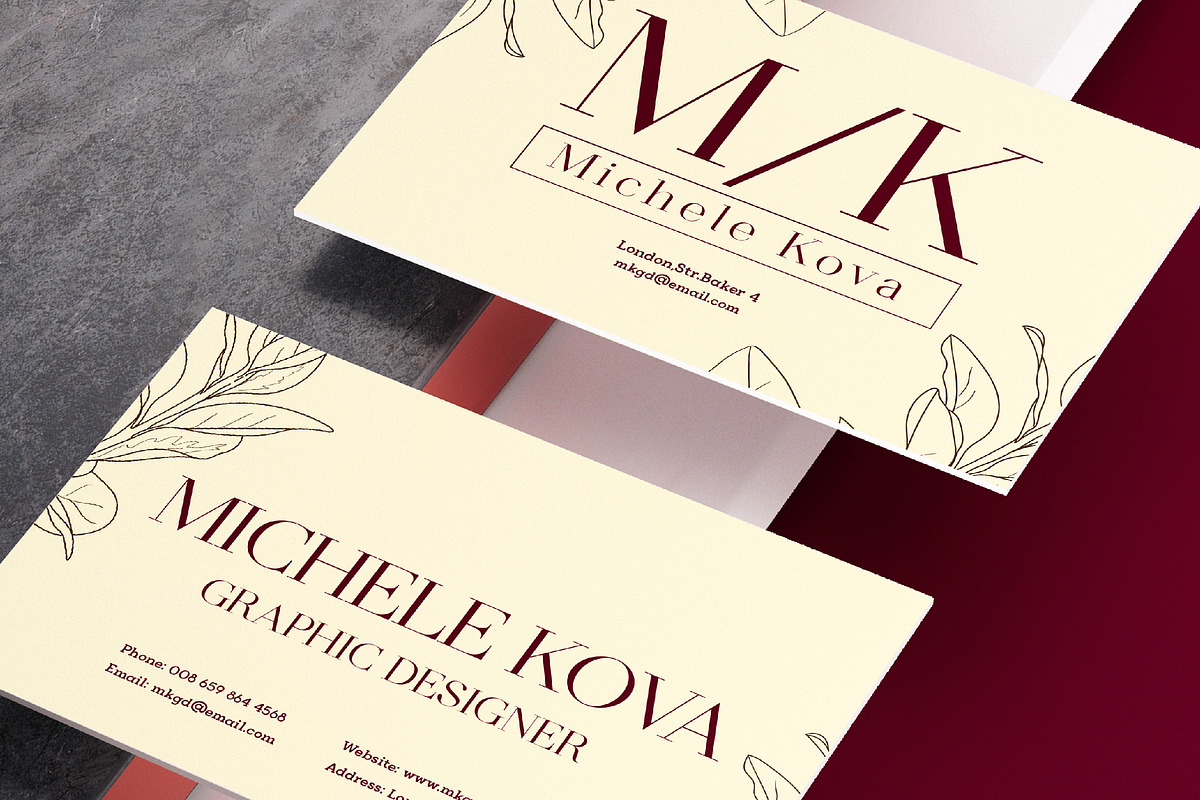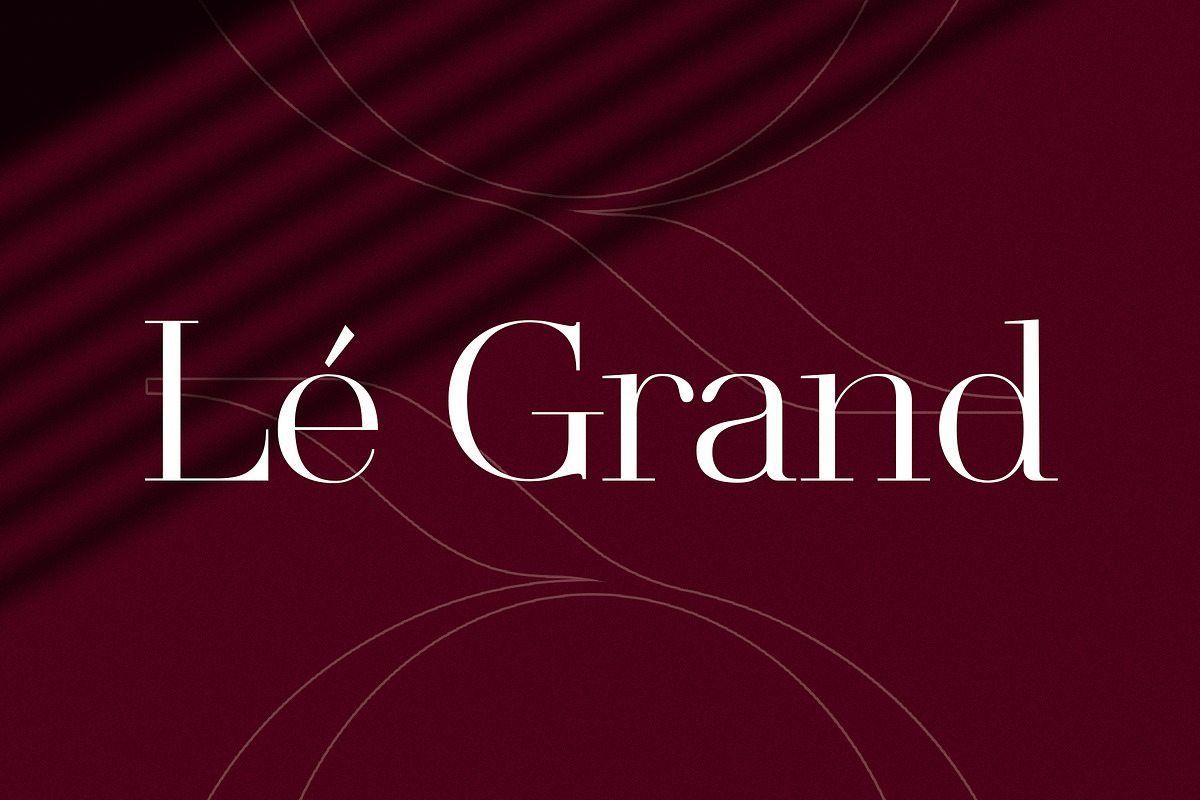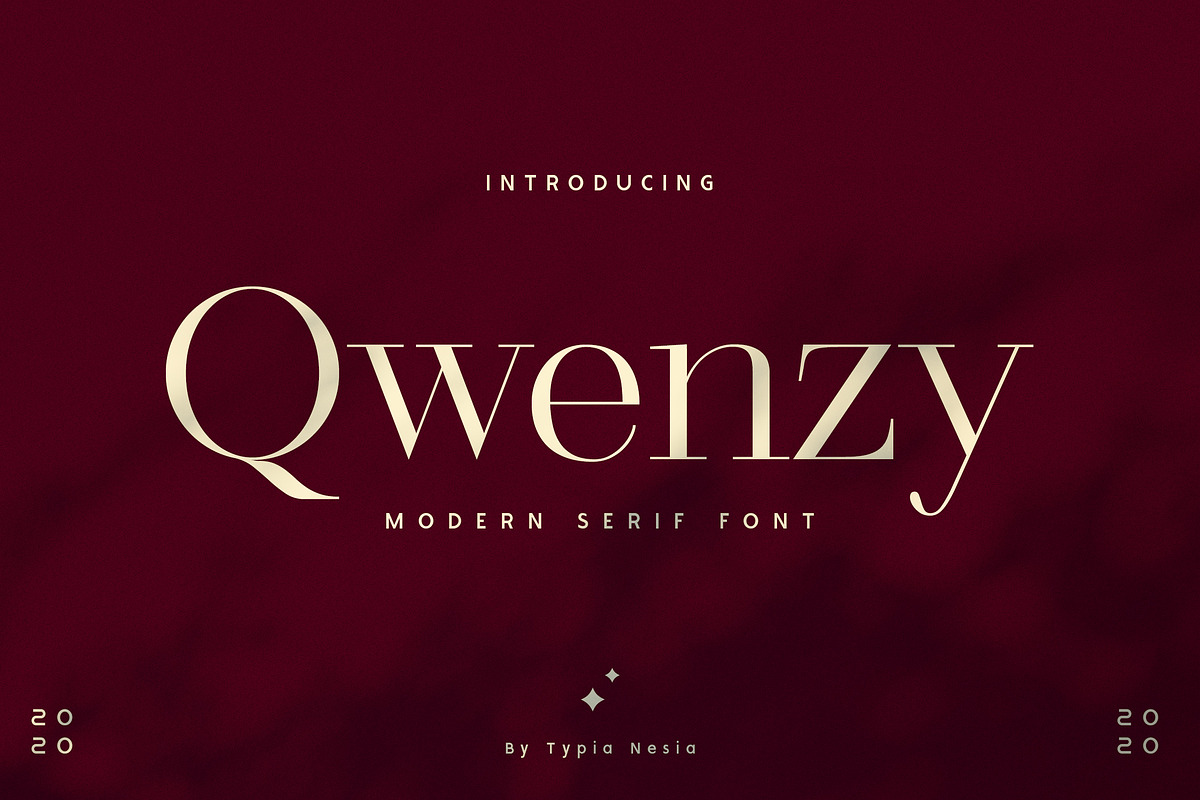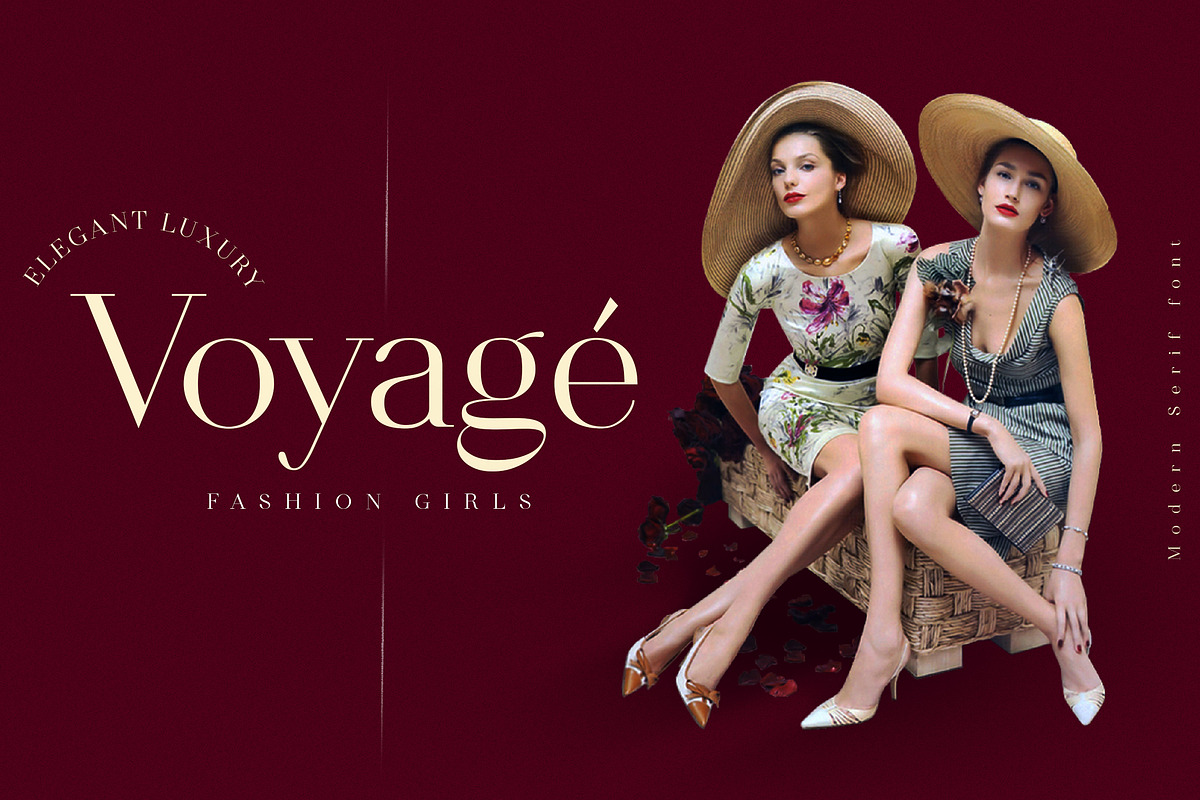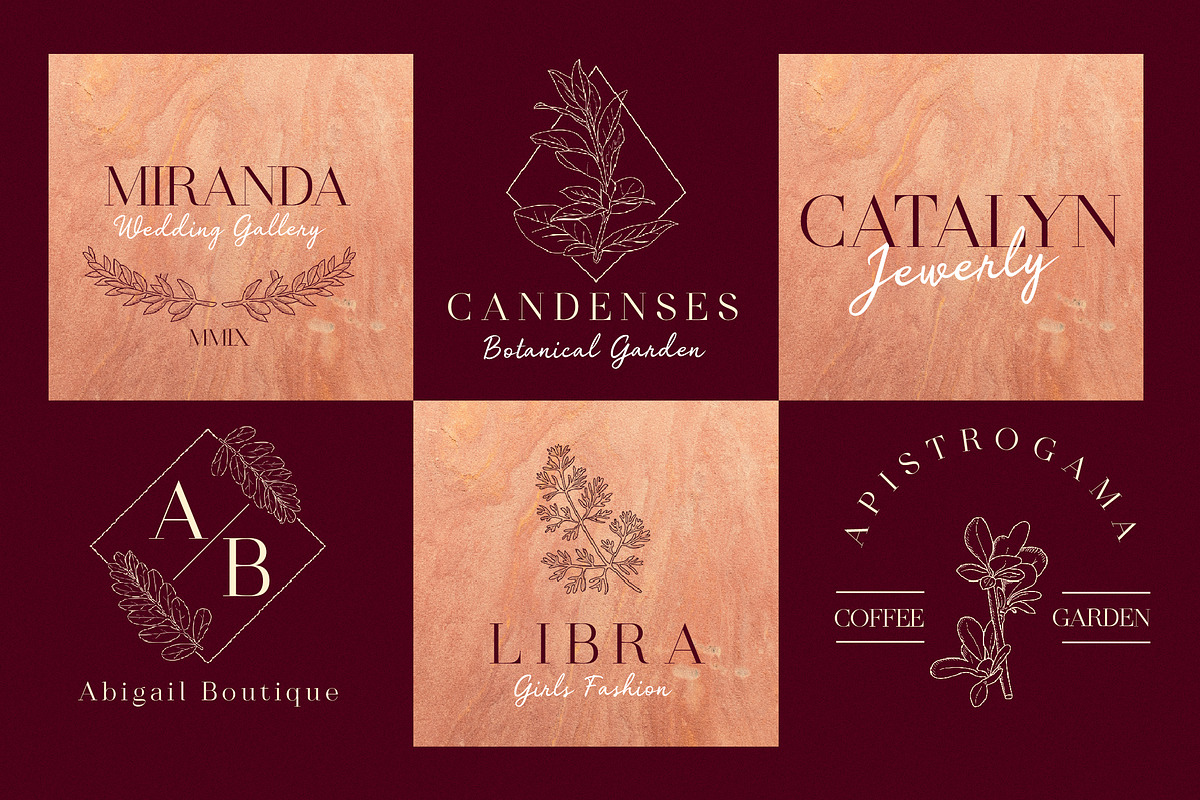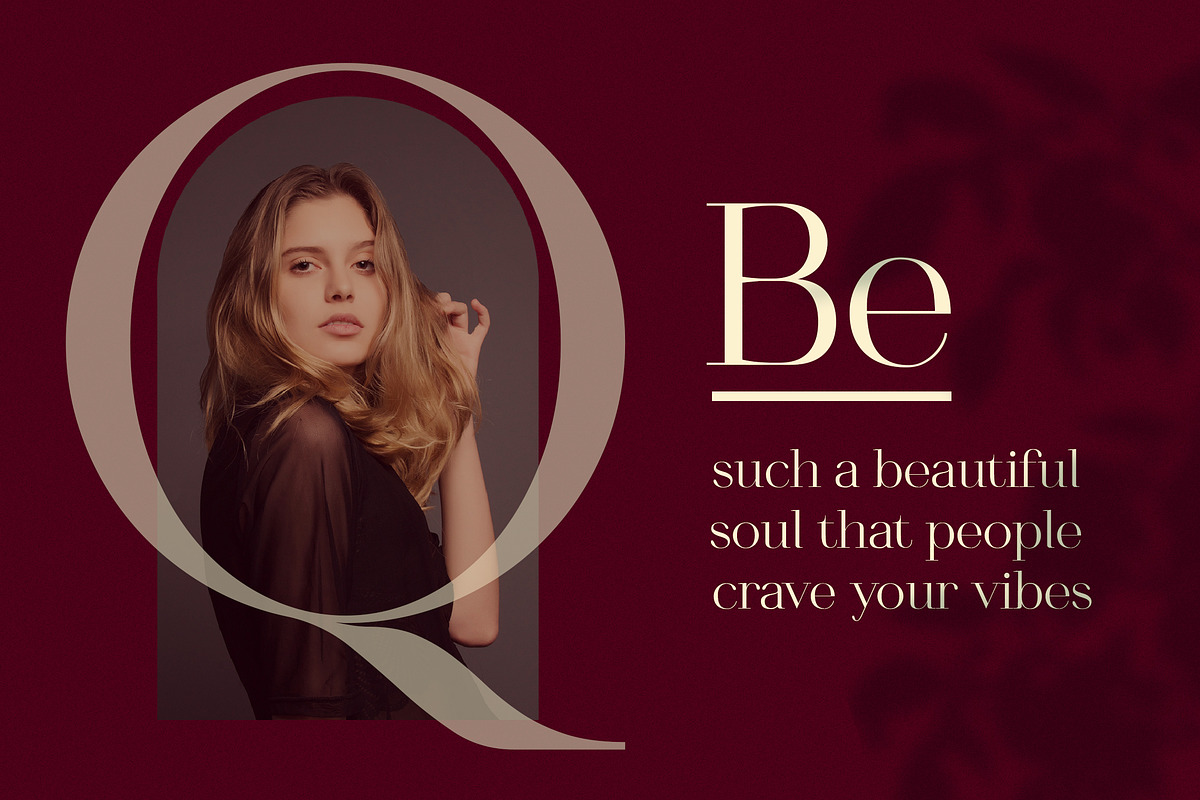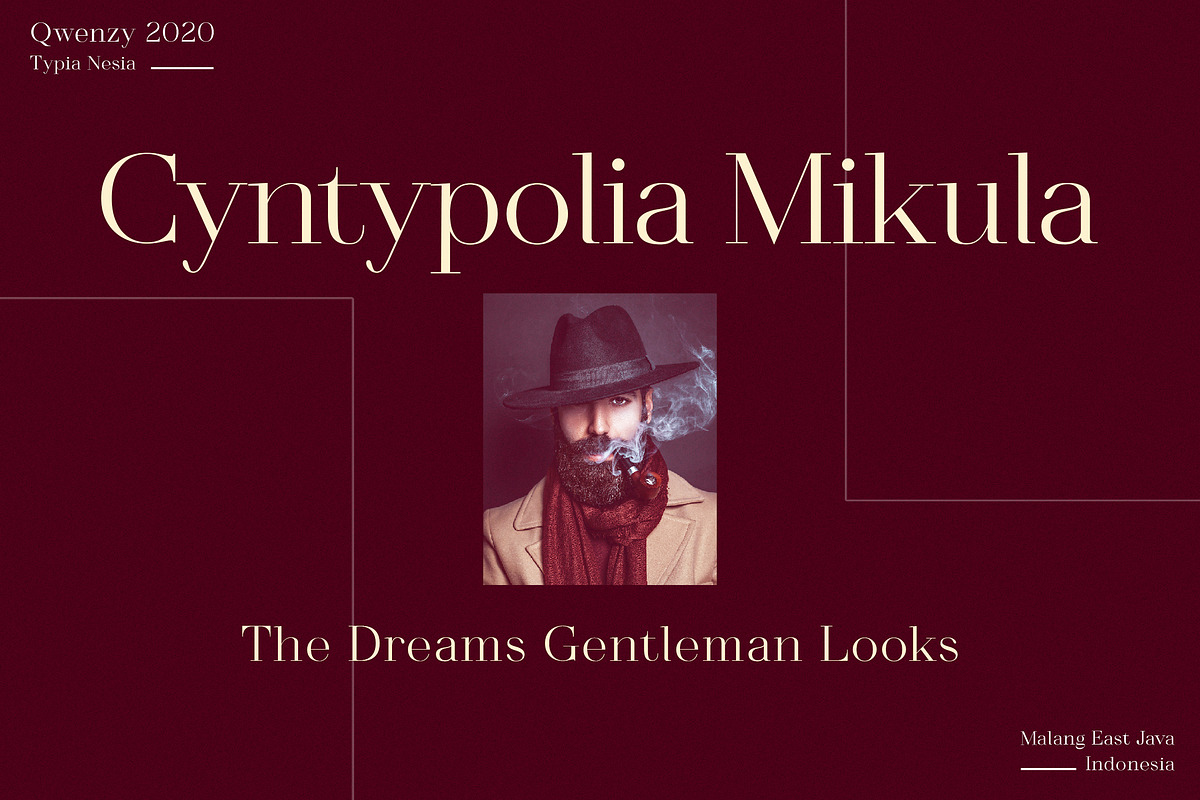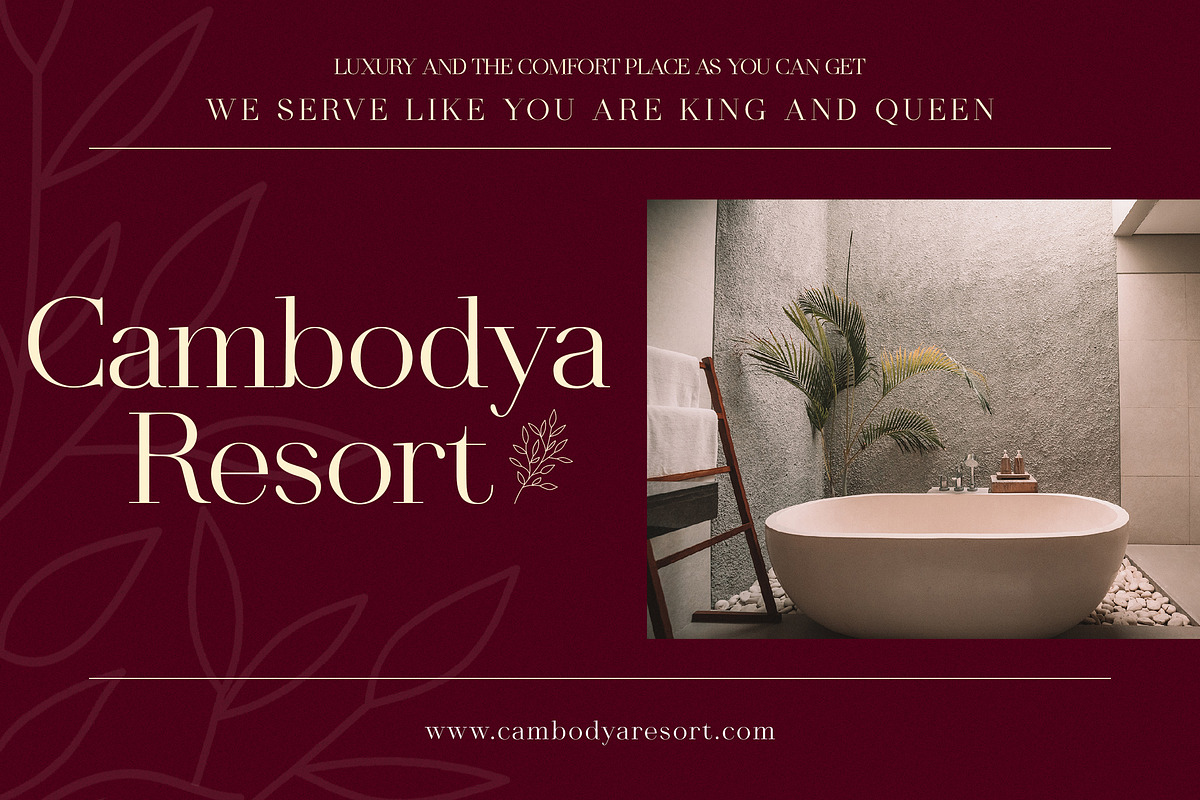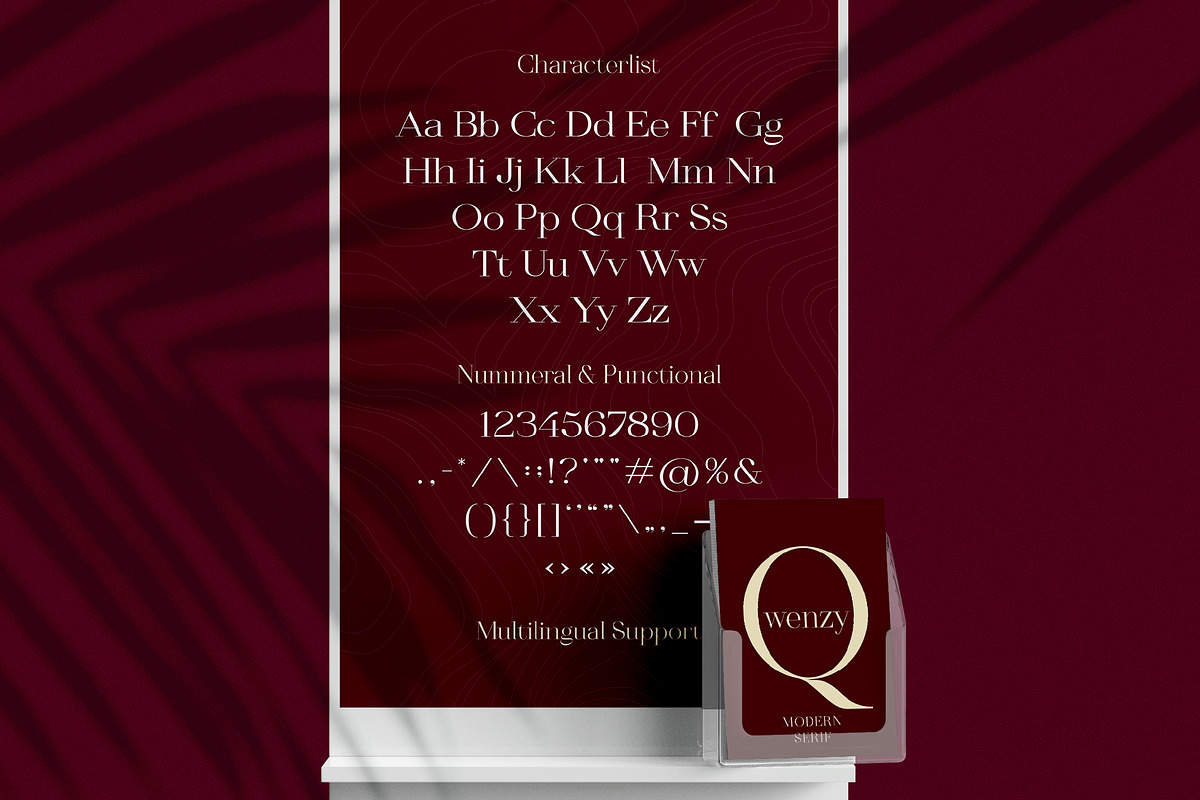
Qwenzy - Modern Serif
Qwenzy - Modern Serif - Luxury and elegant serif font.
Qwenzy Elegant Serif font is perfect for your up coming projects. Such as luxury logo and branding, classy editorial design, magazine, fashion promotional, boutique branding, stationery design, blog design, modern advertising design, card invitation, art quote, home decor, book/cover title, special events and any more.